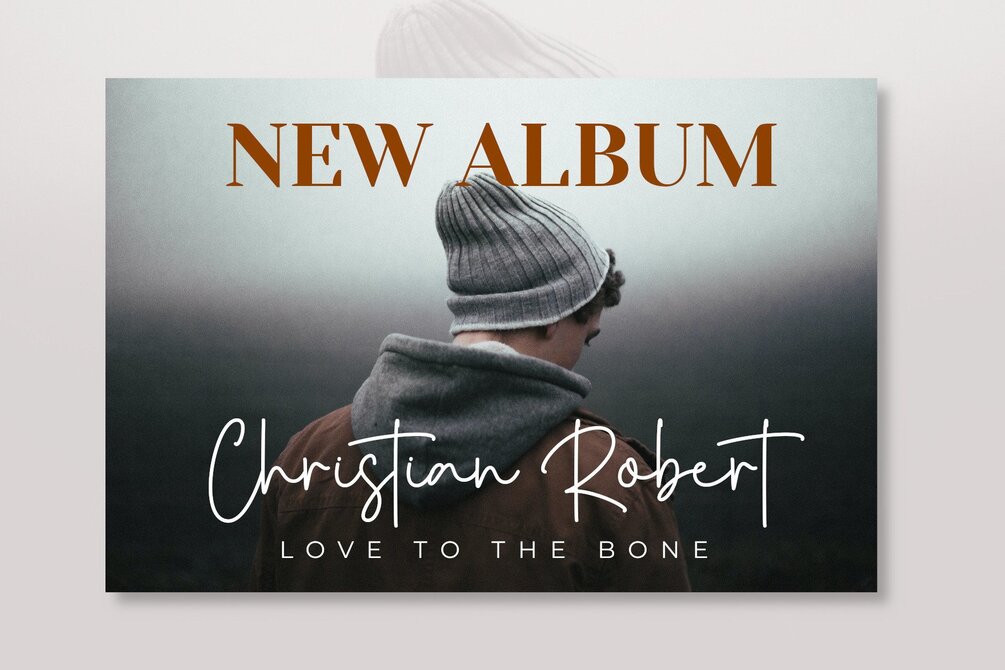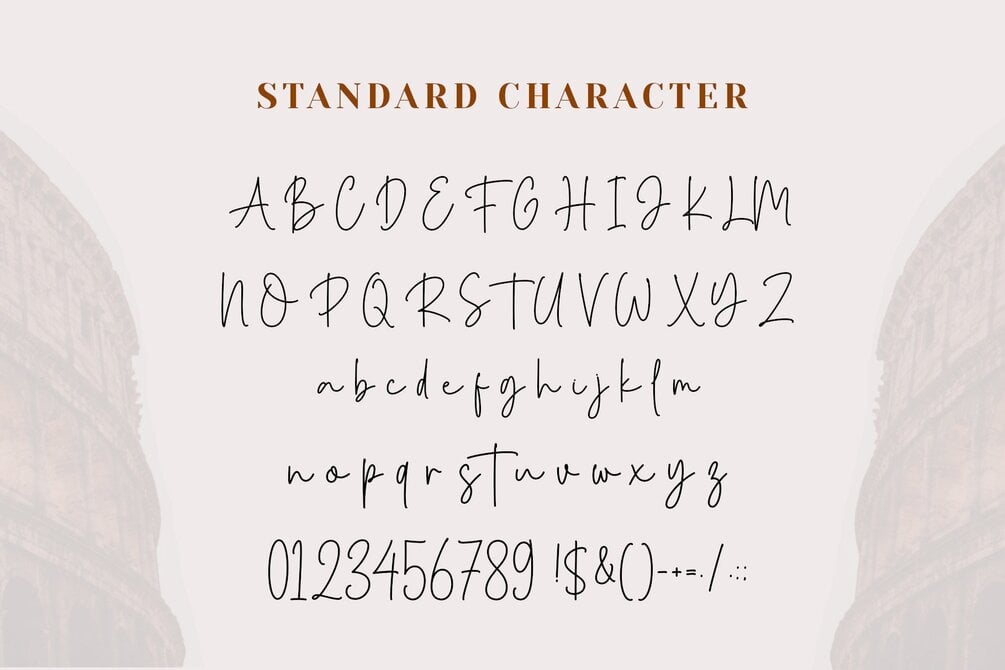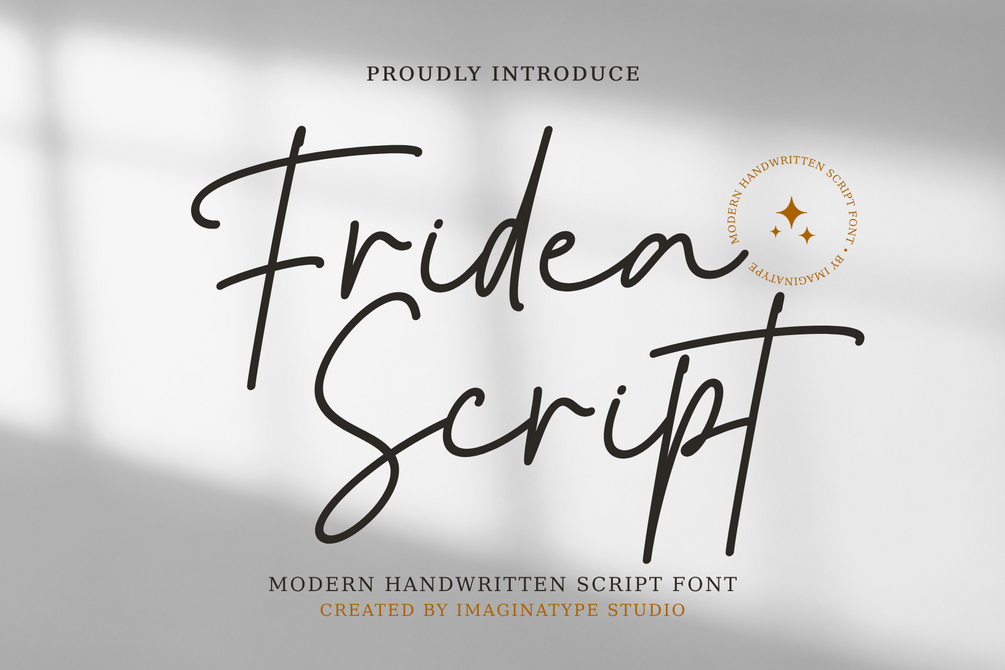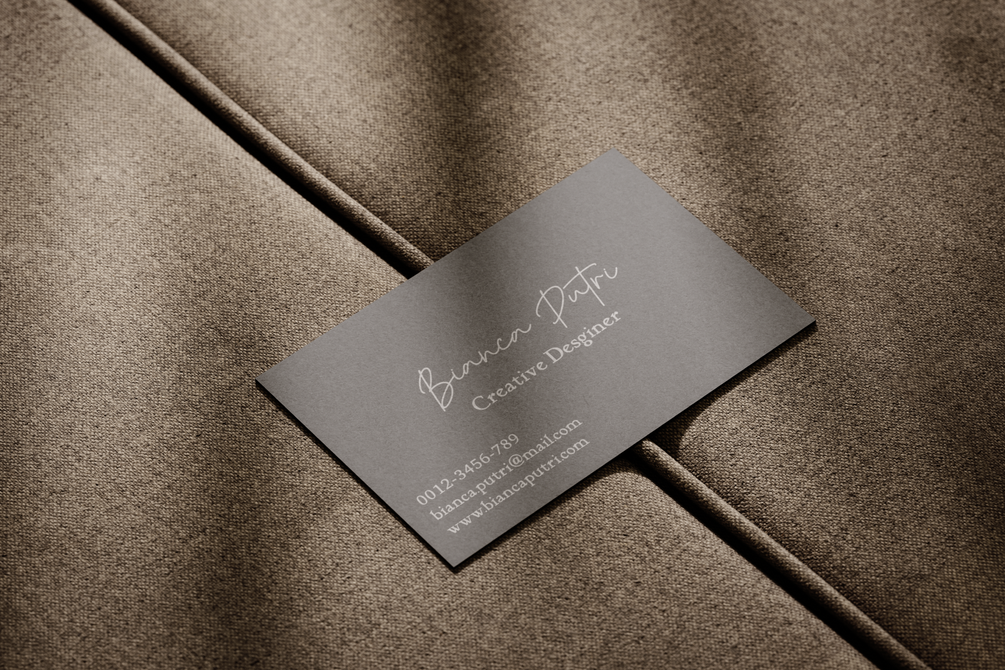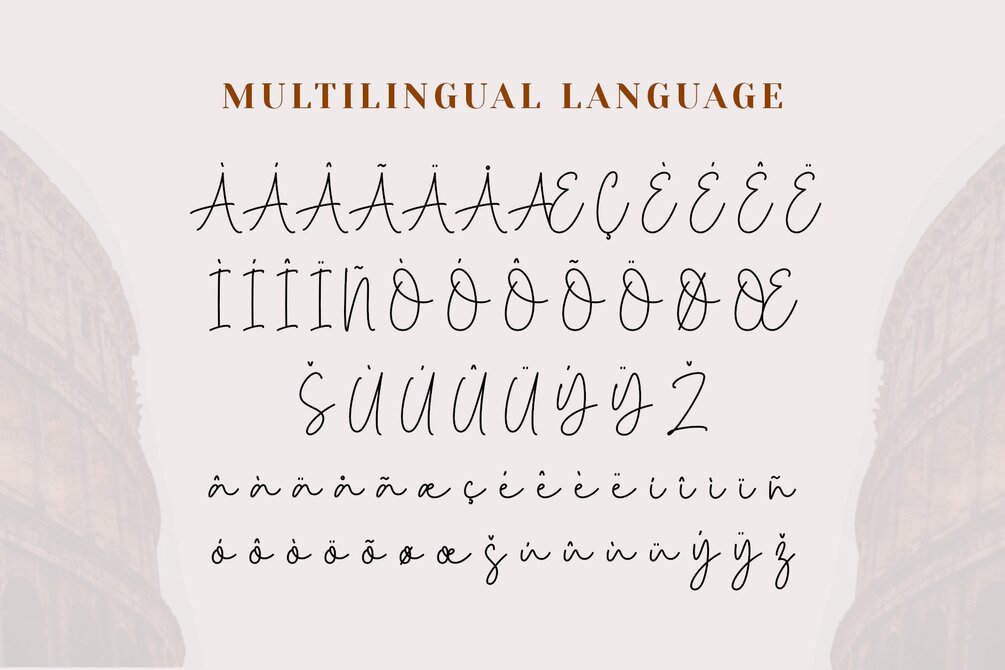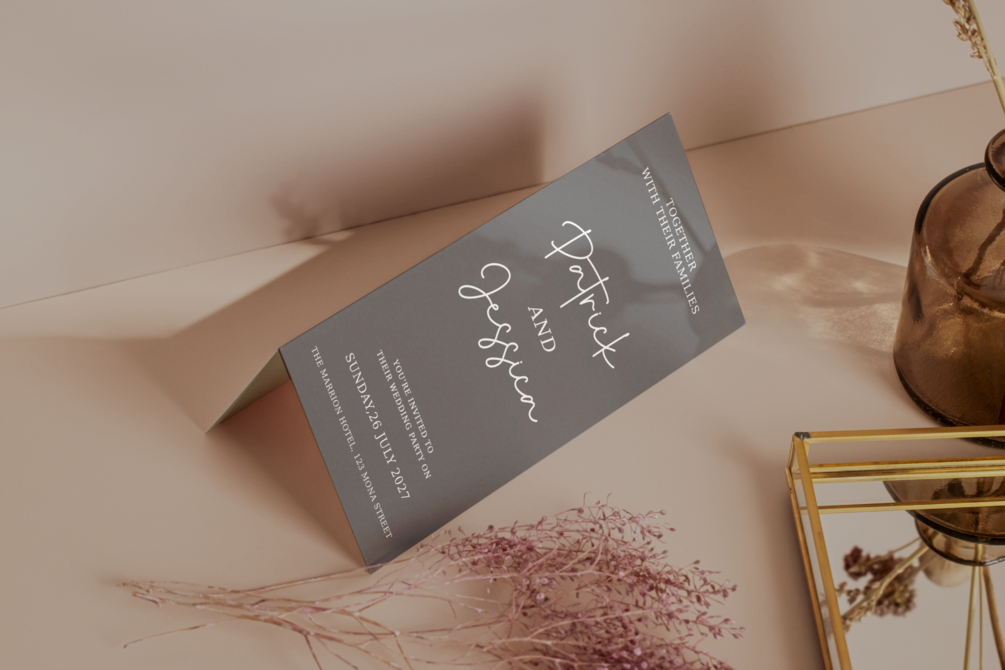
Fridea Script - Signature Font
Fridea Script is a stylish handwritten script that captures the beauty of natural handwriting with a modern and elegant touch. Perfect for logo design, branding projects, wedding invitations, packaging, and stylish editorial use, Fridea Signature blends a personal feel with high-end sophistication.
Designed to elevate your visual identity, Fridea Signature gives your work a refined, signature-style character that is both timeless and versatile. Whether you're working on social media graphics, product labels, photography watermarks, or event stationery, this font will add a beautiful handcrafted finish to every project.
• Uppercase & Lowercase
• Ligatures & Multilingual Support